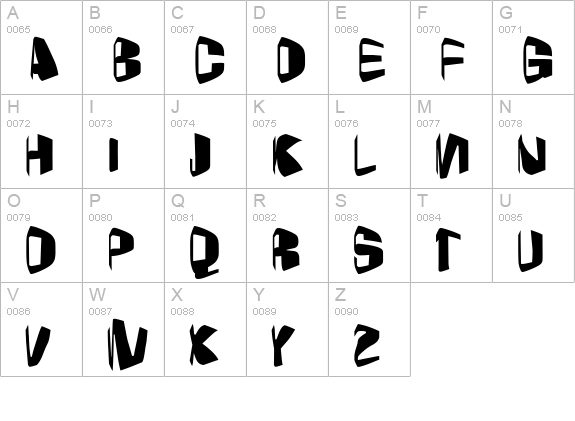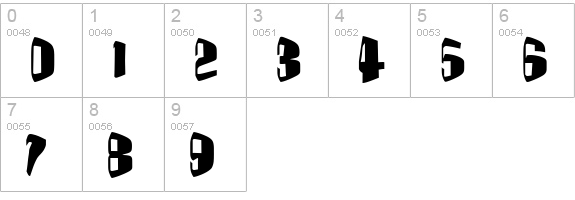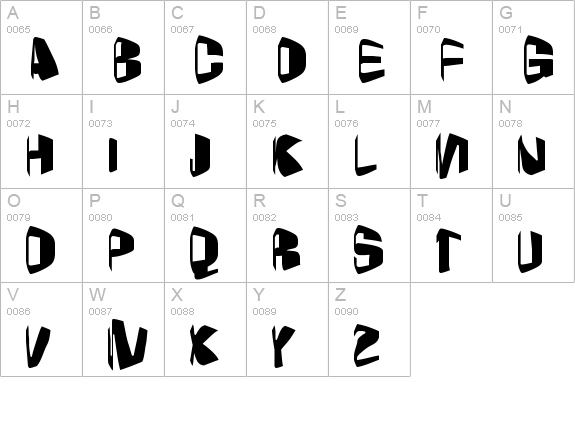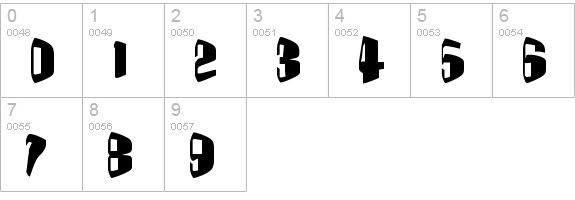
Foldz Font Details
Foldz font is a modern and versatile typeface that combines sleek lines and geometric shapes to create a unique and eye-catching design. With its clean and stylish appearance, Foldz is perfect for a wide range of projects, from branding to web design to print materials. This font features a variety of weights and styles, making it easy to customize and adapt to suit your needs. Whether you're looking to create a bold headline or a subtle accent, Foldz has you covered. Best of all, Foldz font is available for free download at FontsMarket.com. This means you can start using this stylish typeface in your projects right away, without having to worry about any additional costs. Don't miss out on the opportunity to add Foldz font to your collection today!